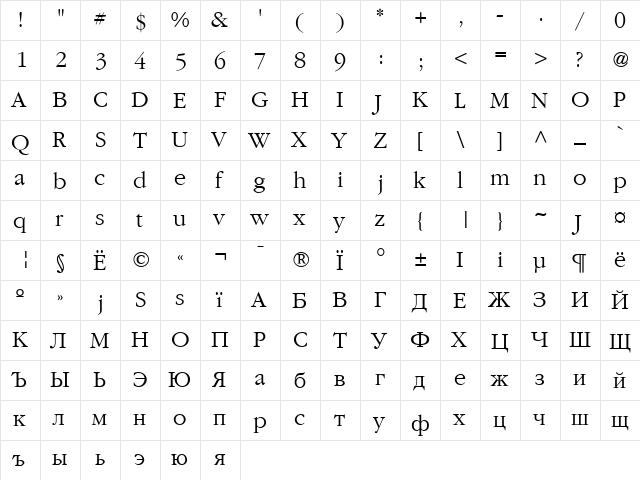
AG Saturday-Light Medium
Design Context for AG Saturday-Light Typeface
AG Saturday-Light offers clean, dependable letterforms without strong stylistic allegiance, making it a practical choice for designers who need flexibility. The delicate stroke weight brings airiness and refinement to layouts.